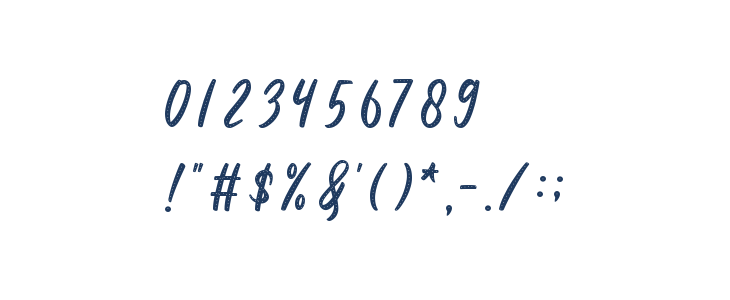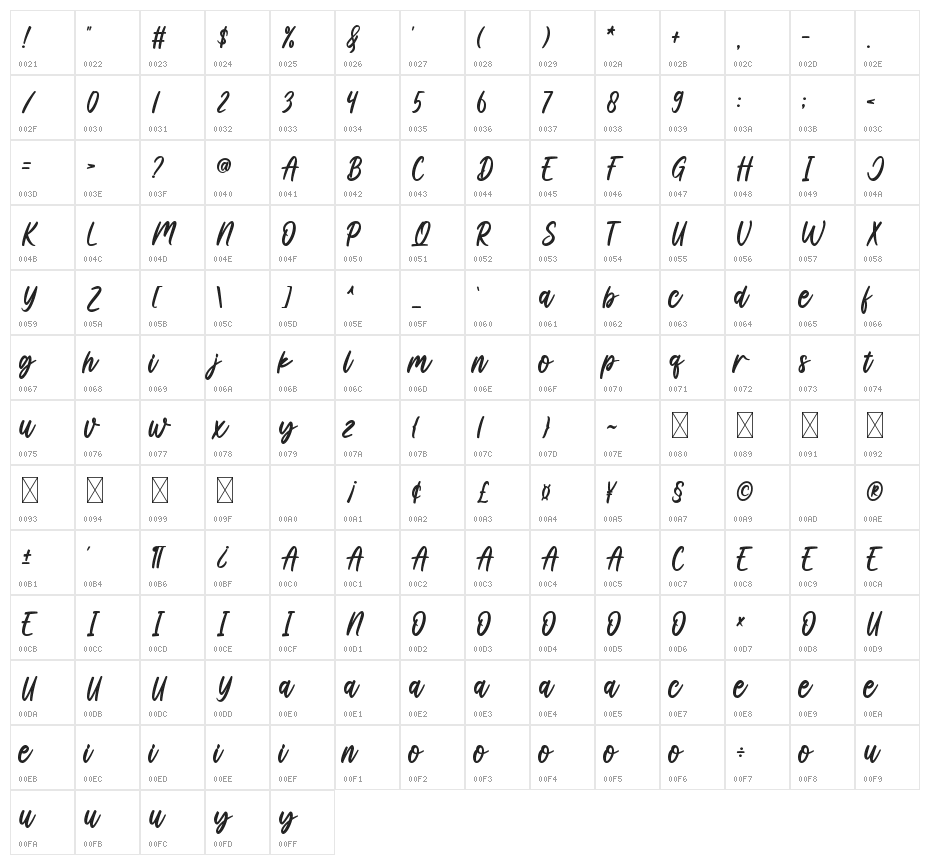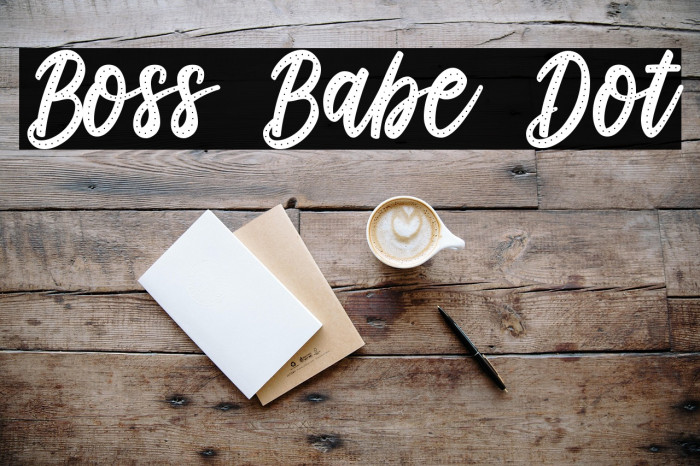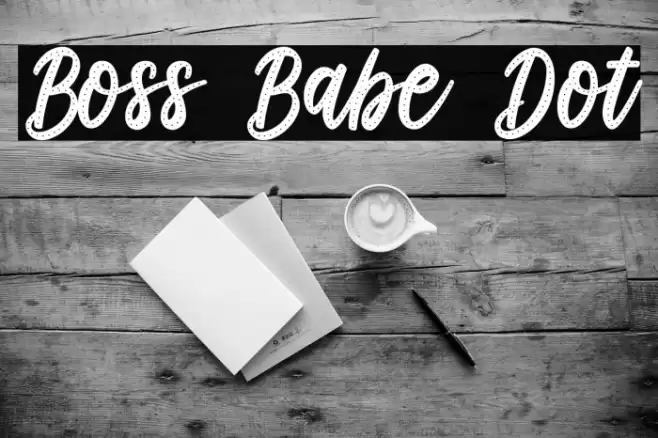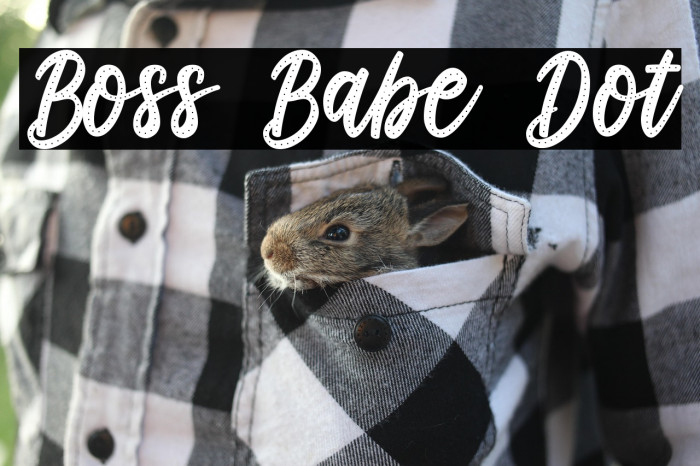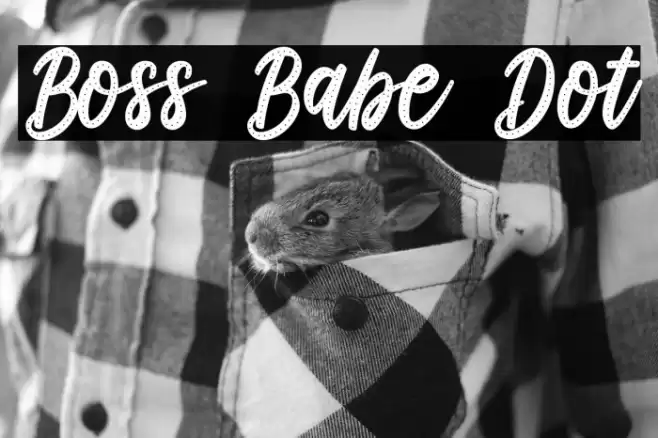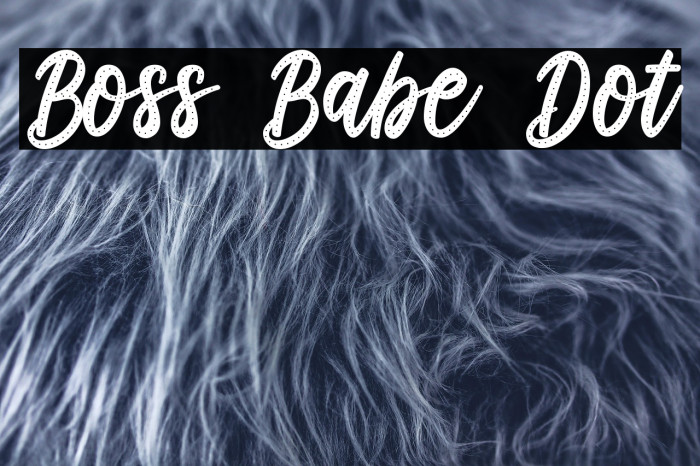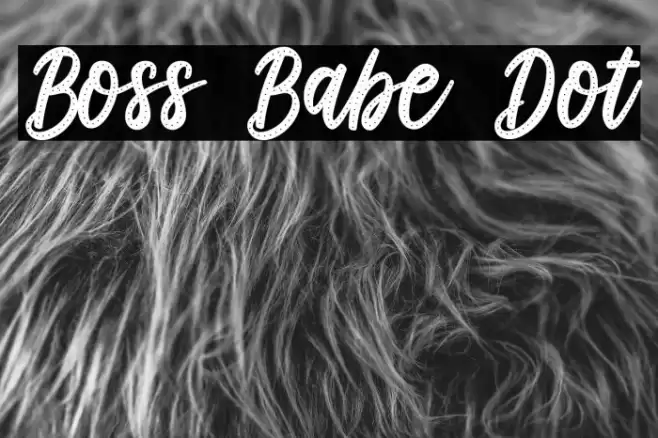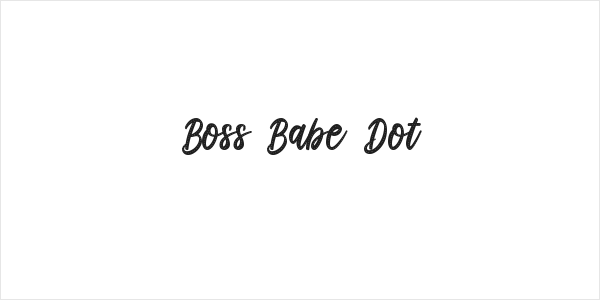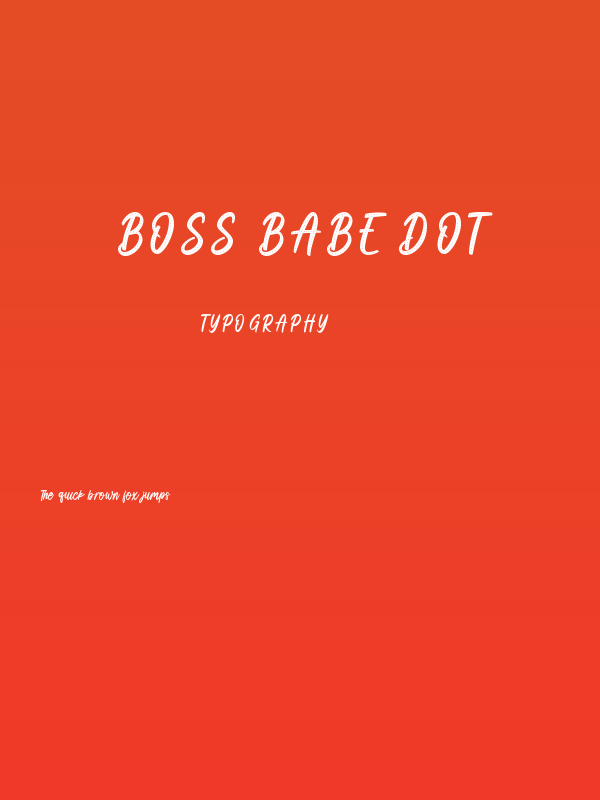
Boss Babe Dot Font
Boss Babe Dot Description
This font features a playful and energetic script style with a dotted texture that adds a unique flair. The characters are bold and slightly slanted, giving a sense of movement and dynamism. The uppercase letters are tall and prominent, while the lowercase letters maintain a consistent flow with rounded edges. Numbers and special characters are designed to match the lively aesthetic, making them stand out in any design. The overall look is both modern and whimsical, perfect for projects that require a touch of fun and creativity.
| Overall Style | Modern, Decorative |
| Proposed Projects | Ideal for branding, social media graphics, invitations, and playful merchandise designs. |